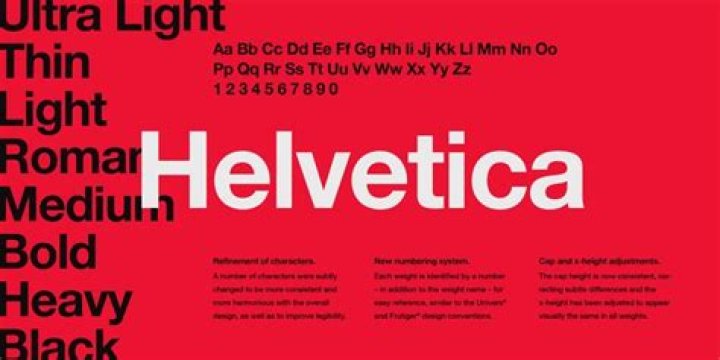
Besides, who created the font Helvetica?
Max Miedinger Eduard Hoffmann
One may also ask, does Apple own Helvetica? The world's most beloved typeface has been dumped. After two rocky years as Apple's typographical identity, Helvetica Neue is being replaced by a bespoke font, San Francisco, as the default font on both OS X El Capitan and iOS 9 this fall.
Similarly one may ask, is Helvetica a default font?
No, Helvetica is not a "base font". The best definition of "bast font" is probably Microsoft's Core Fonts for the web, and Helvetica's not there. If you want Helvetica, you either have to get a Mac (it's one of the default fonts on mac OS X), or buy it from Linotype (the company that owns it).
What font is closest to Helvetica?
Arial
What's wrong with Helvetica?
Functionality. The digital Helvetica (particularly Neue Helvetica) that we know today is not great for text or user interface. Its tight spacing, uniformity, and relative lack of rhythm and contrast pose significant readability and legibility issues in these kinds of settings.
What happened to Helvetica font?
Major companies, which had used Helvetica for years in branding and other materials, had begun to eschew the typeface. Google stopped using it in 2011, in lieu of a custom font that looks a lot like Helvetica, but better. Apple followed suit in 2013 with its own font.
Which country did Helvetica originate from?
Its design wasn't original: Helvetica was born out of a typeface from 1896 called Standard in the US and Akzidenz-Grotesk in Germany, which had been used as the avant-garde typeface from the 1920s, especially in Switzerland.
Why is Helvetica the most popular font?
Created in the 1950's by Swiss typographer Max Miedinger, Helvetica now has a worldwide presence and is somewhat of a VIP of fonts. Helvetica is named after the Latin name for Switzerland and is popular among designers for its clean, bold and modern look.
Is Helvetica a Google font?
Helvetica is one of the most popular and widely used sans-serif typefaces in history. These fonts are free to use and are available on Google Fonts.
What does Helvetica mean in English?
Originally named Neue Haas Grotesk (New Haas Grotesque), it was rapidly licensed by Linotype and renamed Helvetica in 1960, which in Latin means "Swiss" (from Helvetia), capitalising on Switzerland's reputation as a centre of ultra-modern graphic design.
What is the difference between Arial and Helvetica?
The primary differences between Arial and Helvetica can easily be seen in the distinguishing characters shown above: Helvetica's terminal strokes are either horizontally or vertically cut, while those of Arial are slightly angled, the cap G in Helvetica has a spur while Arial does not, the leg of the cap Rs are
What does Helvetica mean in Swedish?
tusan – shoot. förbövelen (this is yet another religious word but not as severe) – literally it means executioner. Sjutton också – sjutton means seventeen but religiously the number meant more than it does today.
What is the cloned version of Helvetica called?
Swiss 721: Bitstream's infamous clone of the Linotype original. Switzerland. Swiss 911 BT: Bitstream's clone of Helvetica Compressed. Swiss 921 BT: clone of Helvetica Inserat.
Why don't I have the Helvetica font on my computer?
The Helvetica font is sold by Monotype Imaging, which holds the license on the full Helvetica family of typefaces. Helvetica is not included as a default font on Windows computers. Many typefaces look like Helvetica that may already exist in your computer's font collection.
What font does Apple use?
Helvetica Neue
Can I use Helvetica commercially?
This font is commercial property and is not allowed to use without proper licensing for usage. It's legal to ask the browser to use Helvetica Neue if it's available on the system, but you'd need a license if you want to serve the font yourself.
How do you pronounce Helvetica?
Neue Helvetica isn't pronounced "Neue Helvetica," it's pronounced NOY-ya hell-VEE-tee-kah. Regular boring Helvetica should also be pronounced hell-VEE-tee-kah, too, apparently. "Futura" should be said foo-TOO-rhlah, which is impossible unless you are German.
What is the new Helvetica?
Helvetica® Now is a new chapter in the story of perhaps the best-known typeface of all time. Available in three optical sizes—Micro, Text, and Display—every character in Helvetica Now has been redrawn and refit; with a variety of useful alternates added.
Does Windows have Helvetica?
Turns out, in Windows, there's a registry key that aliases Helvetica to Arial. If you specify Helvetica, you'll get Arial. If you specify Helvetica and then specify any fonts after it, you'll get Arial.